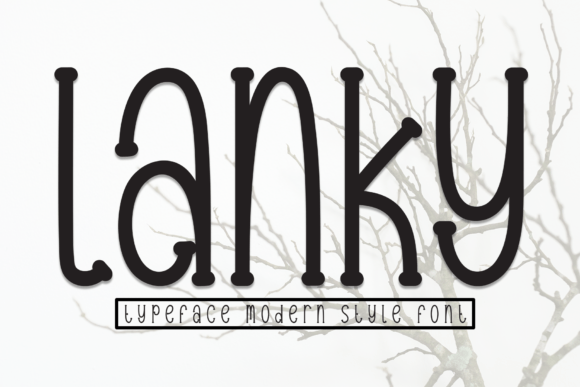
**Lanky Font: The Star of Your Creative Firmament**
Are you seeking a font capable of bringing life to your creative endeavors? Encounter Lanky Font, a brilliant creation from Strongkeng Old, specifically designed to illuminate LED displays. Its charming demeanor will infuse your designs with an endearing ambiance.
Lanky Font is an enthralling display font, adorned with sweet and friendly overtones. Its playful and adorable nature makes it an ideal companion for your heartfelt wedding invitations or whimsical greeting cards, adding a touch of jovial flair to any project.
Its meticulously crafted characters, imbued with a magnetic allure, will captivate your audience and leave an everlasting impression. Lanky Font transcends the boundaries of ordinary typography, becoming an artistic expression that dances across your screen.
With Lanky Font as your creative ally, your designs will radiate with an effervescent charm, enticing your audience with its playful and captivating nature. Embrace the glory of Lanky Font and unlock a world of creative possibilities!
**Unleash Your Creativity with Lanky Font**
Lanky Font beckons you to explore the depths of your creative potential, inviting you to craft designs that overflow with originality and flair. Its playful spirit and amiable character inject a sense of joy into any project, making it the perfect choice for logos, posters, social media graphics, and more.
Lanky Font's versatility is truly remarkable. It effortlessly adapts to a myriad of creative endeavors, seamlessly blending with various styles and themes. From whimsical and lighthearted designs to elegant and sophisticated creations, Lanky Font possesses the versatility to elevate any project to new heights.
**Experience the Enchantment of Lanky Font**
Lanky Font is more than just a font; it's an artistic voyage that transports you to a realm of captivating design. Its enchanting aura and playful demeanor will ignite your imagination, inspiring you to create designs that resonate with your audience on a profound level.
As you embark on this creative journey with Lanky Font, you'll discover a font that doesn't merely occupy space on your screen; it becomes an integral part of your artistic expression. Its captivating curves and whimsical strokes will weave a tapestry of visual intrigue, leaving your audience spellbound.
Immerse yourself in the boundless creativity of Lanky Font and watch as your designs blossom into masterpieces. Its sweet and friendly nature will leave an indelible mark on your audience, creating an emotional connection that transcends words.